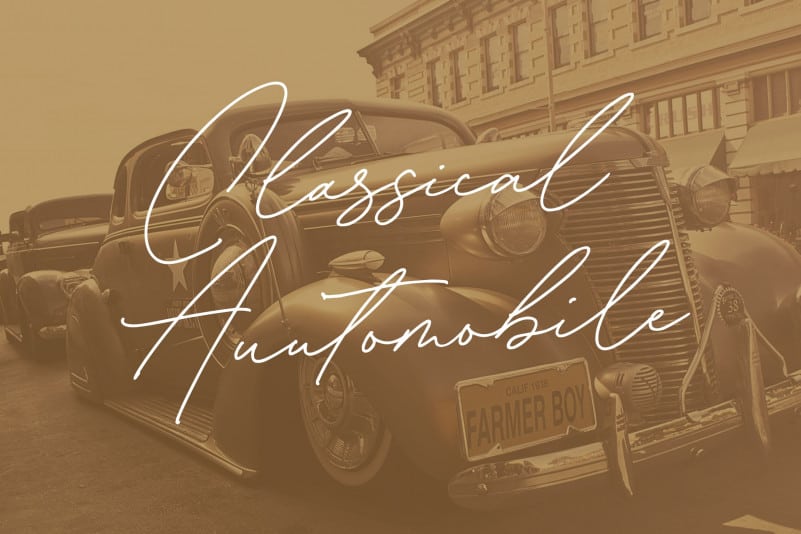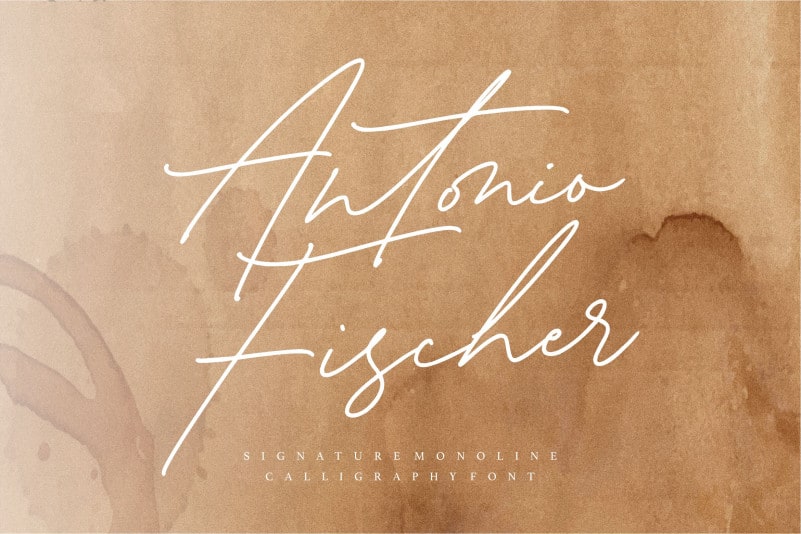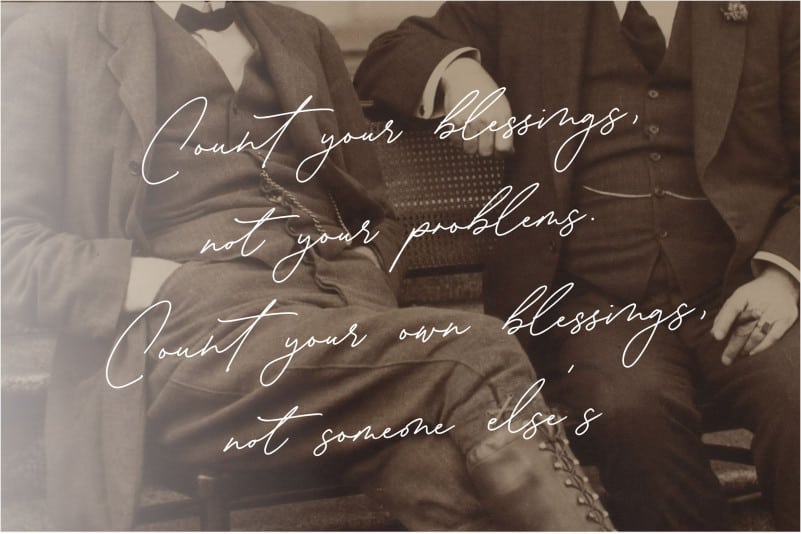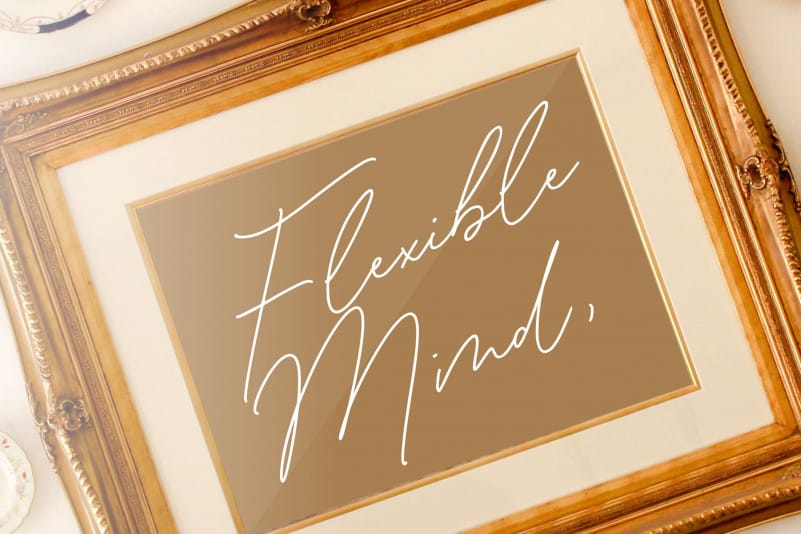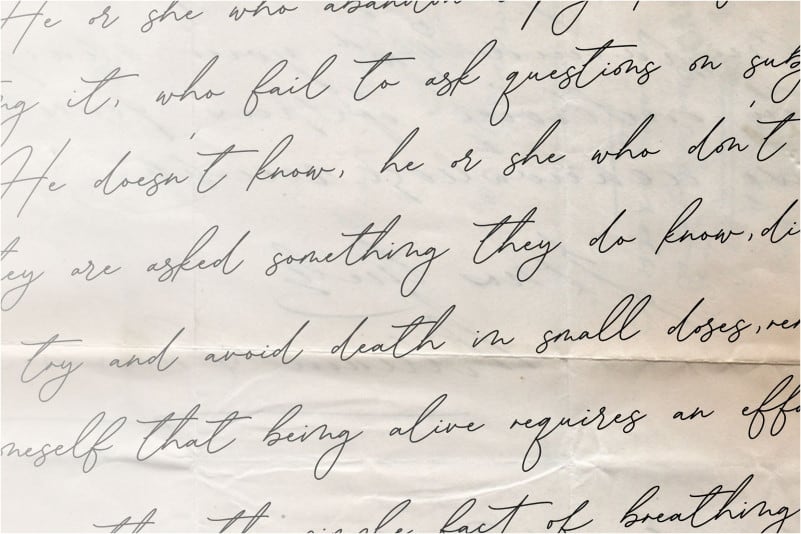
Proudly Present, Antonio Fischer Signature Monoline Font.
Antonio Fischer is a Signature Monoline Calligraphy Font.
It is perfect for product packaging, branding project, megazine, social media, wedding, or just used to express words above the background.